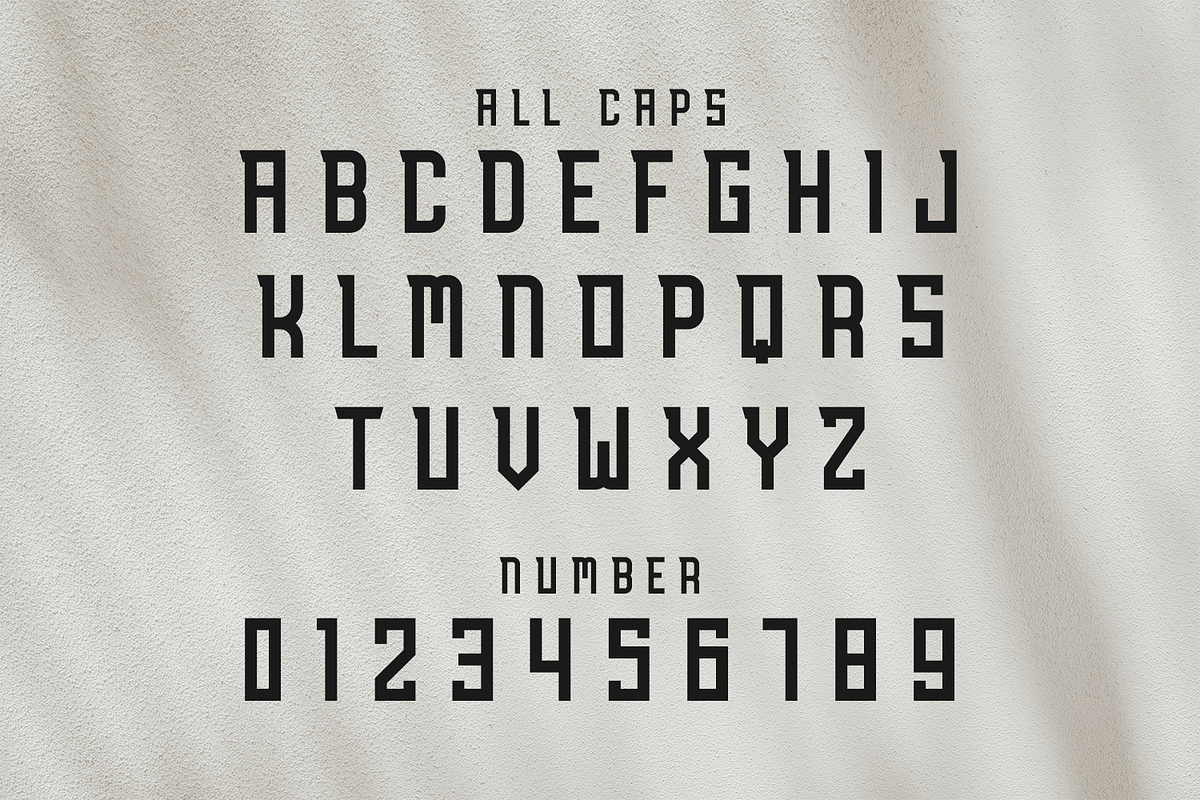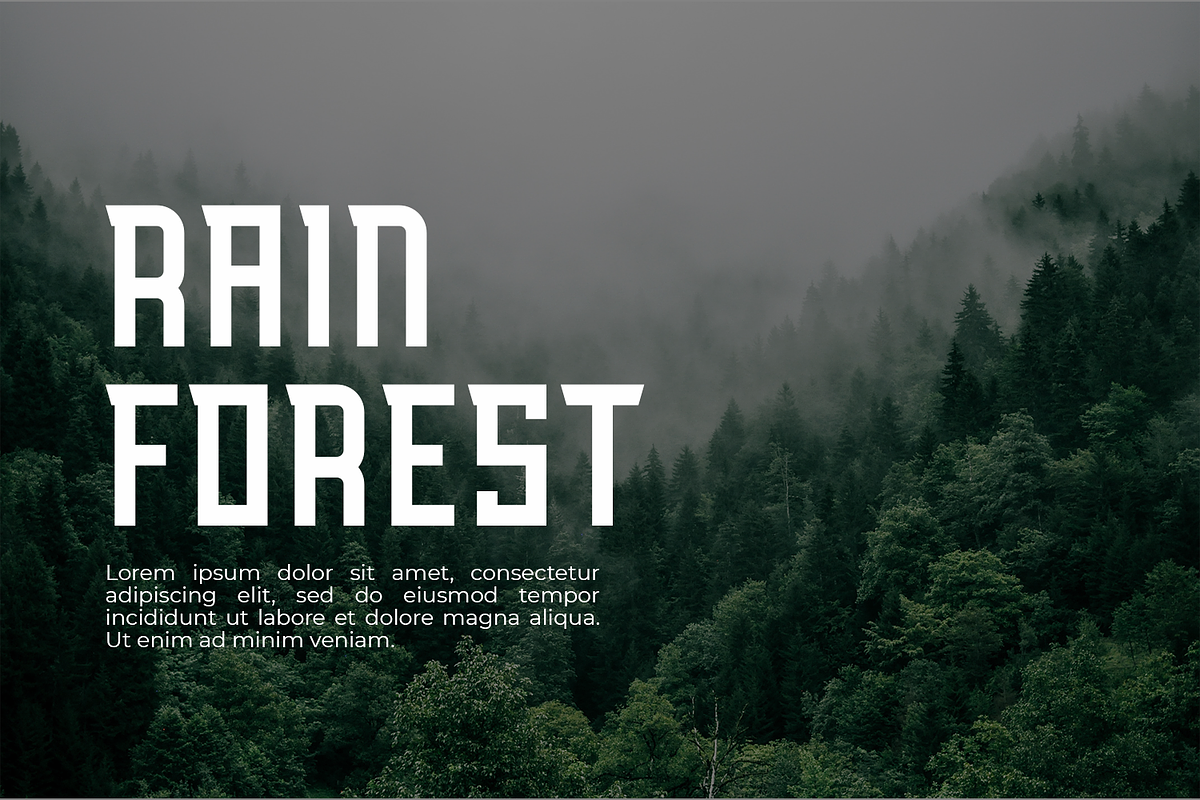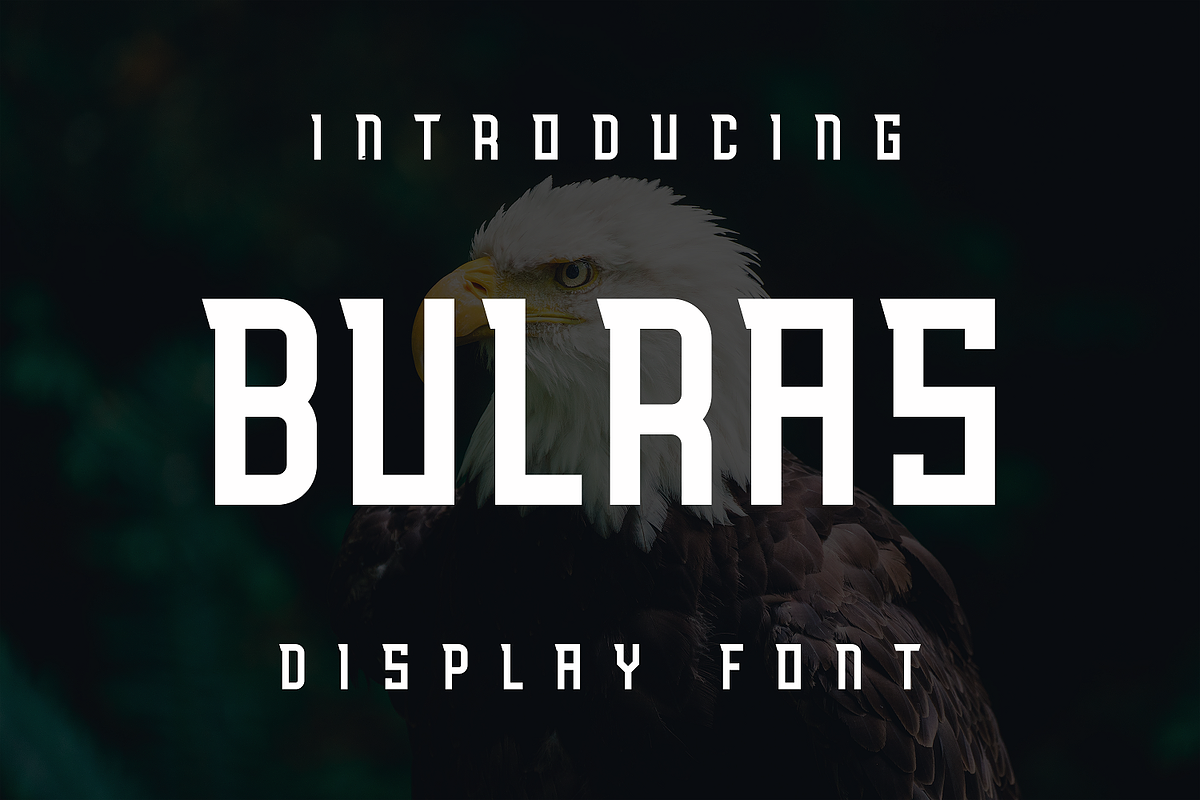
Bulras
Bulras Perfectly suited on print/screen. it’s perfect for Branding, name card, poster, logo, magazine, cover, banner, tshirt and headers, or even large-scale artwork.